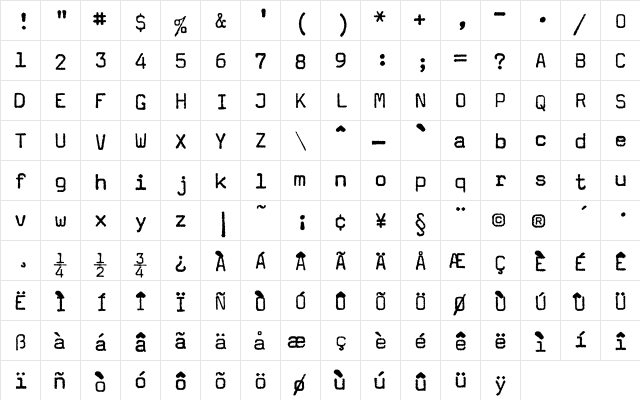
Magda Plain
Design Context for Magda Typeface
Magda offers clean, dependable letterforms without strong stylistic allegiance, making it a practical choice for designers who need flexibility.